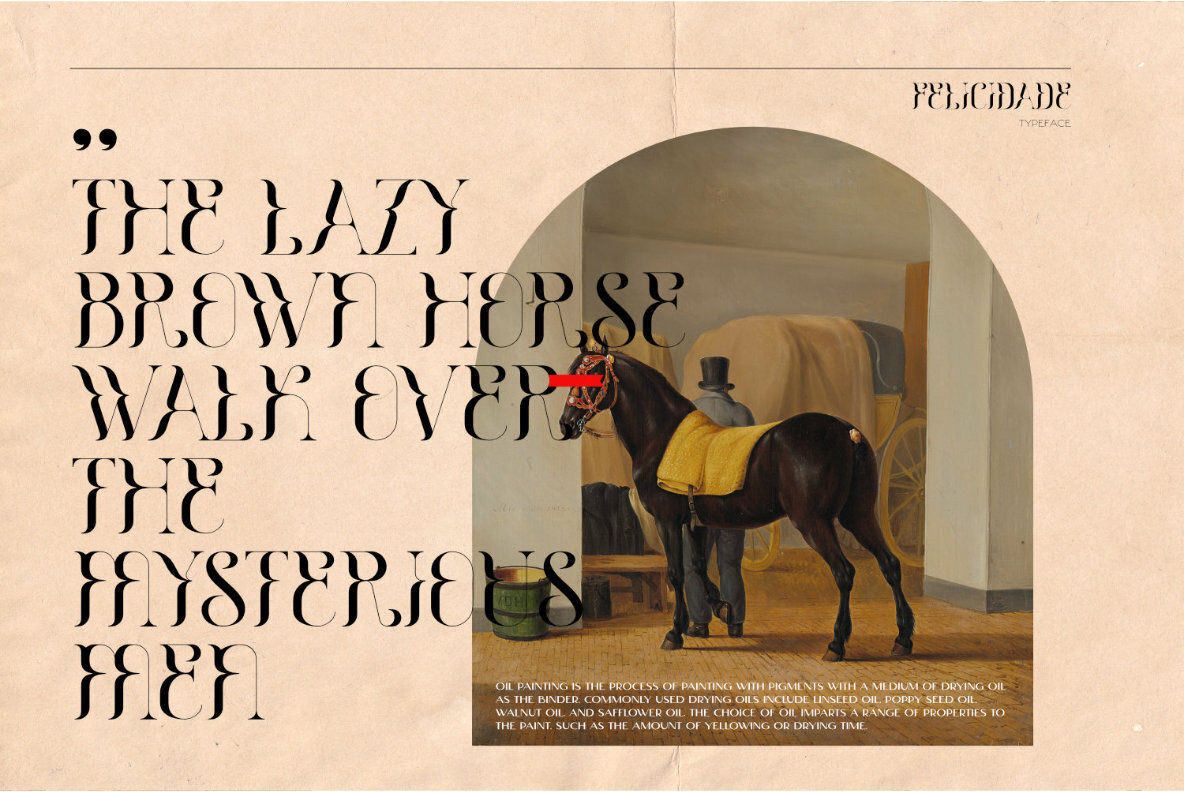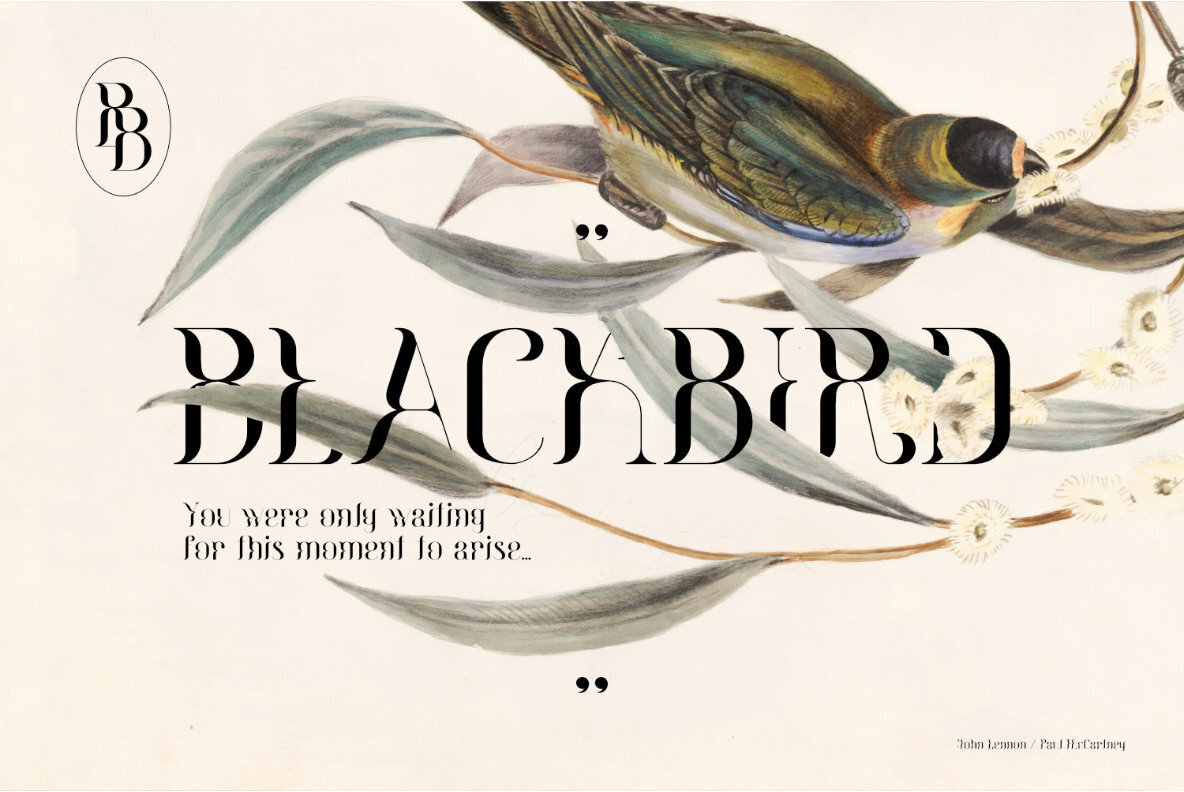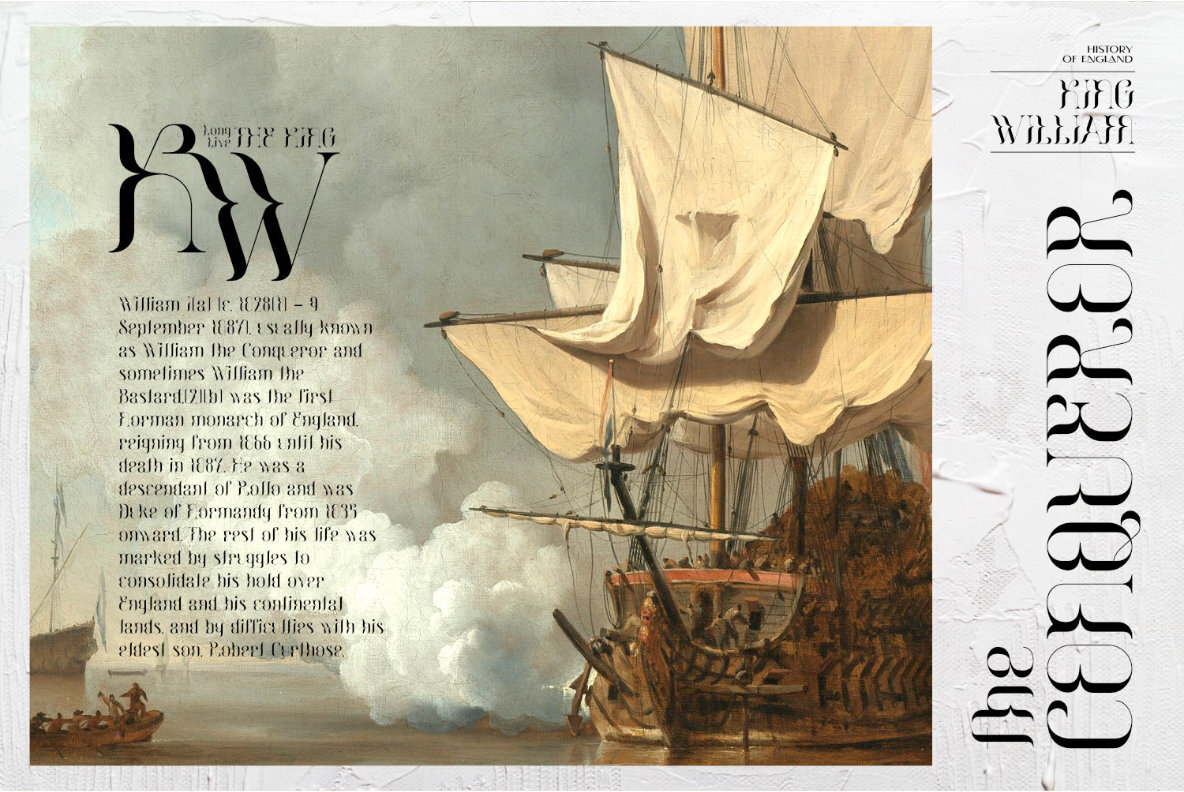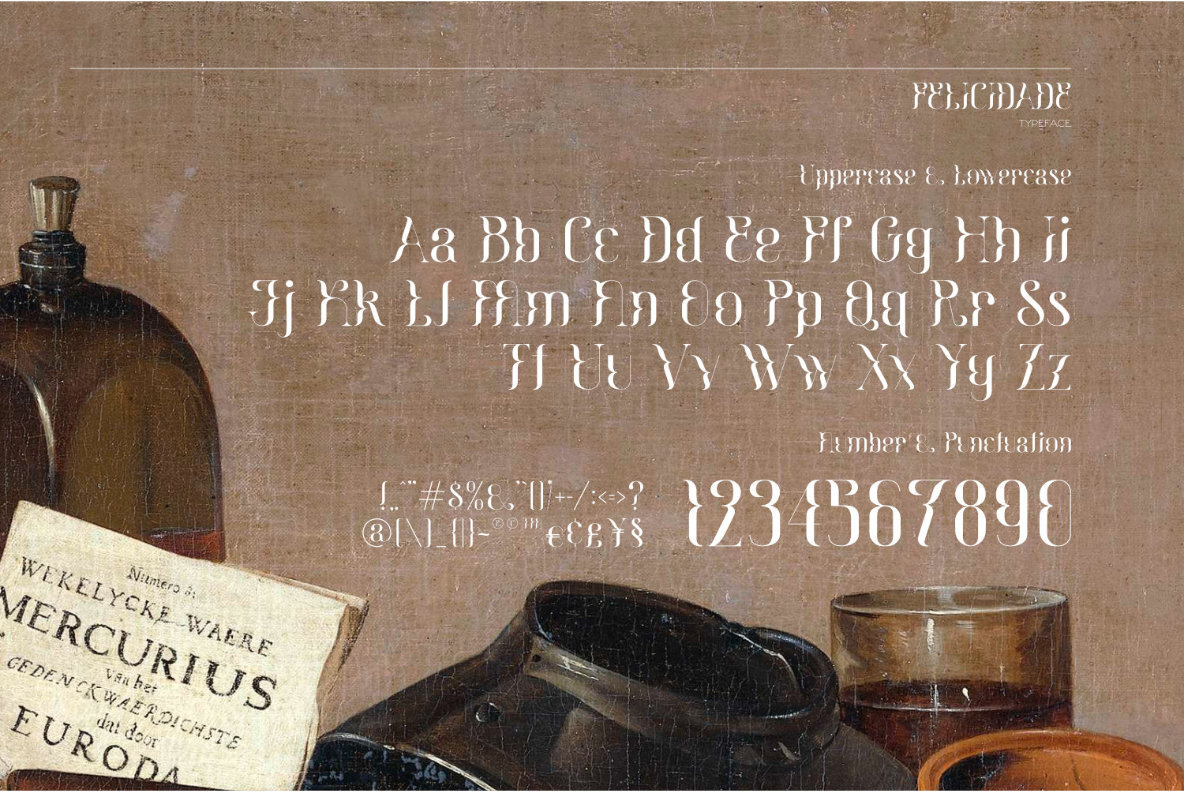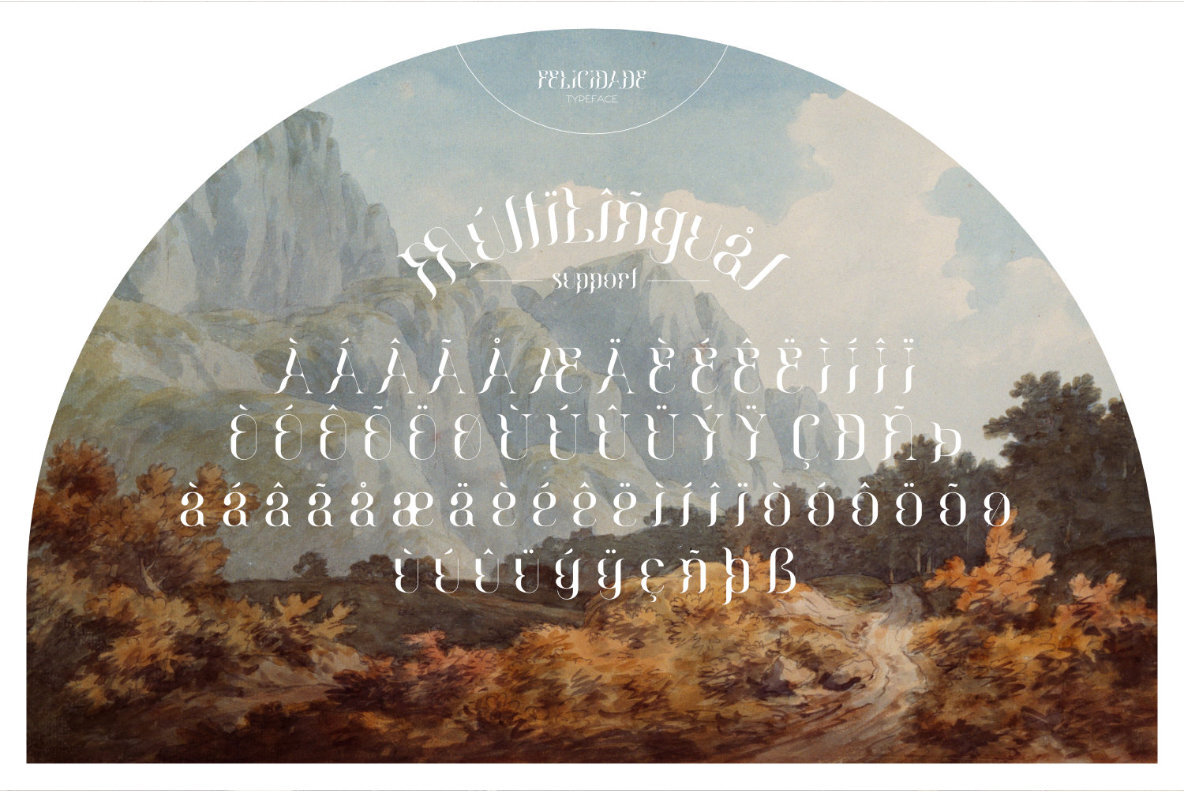
Felicidade Font
Felicidade Type Regular
Felicidade is a sophisticated typeface that evokes a sense of nostalgia. Its old-fashioned charm makes it ideal for luxury brand logos, book covers, and packaging designs. The vintage touch in its design suits ancient and vintage-themed products, magazine headers, posters, and even expressive quotes.Felicidade Typeface: A Vintage Elegance